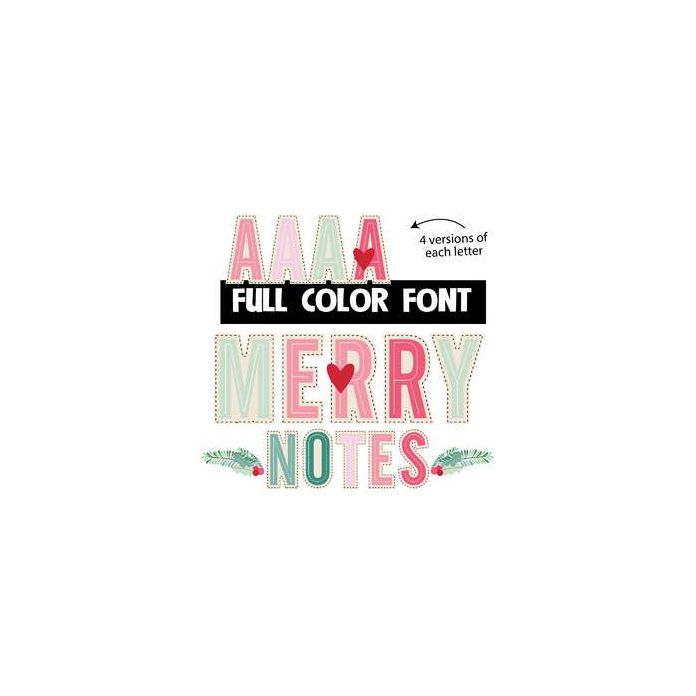
This full-color font features blocky letters with outlines in a pretty Christmas-like palette. A second upper and lowercase are available in additional colors that you can access through your system's character map. Use the brackets to add holly to the font. This font works best for titles, displays, posters and more. Please note color fonts will show as black in non compatible programs. This font type is compatible with Silhouette Studio.